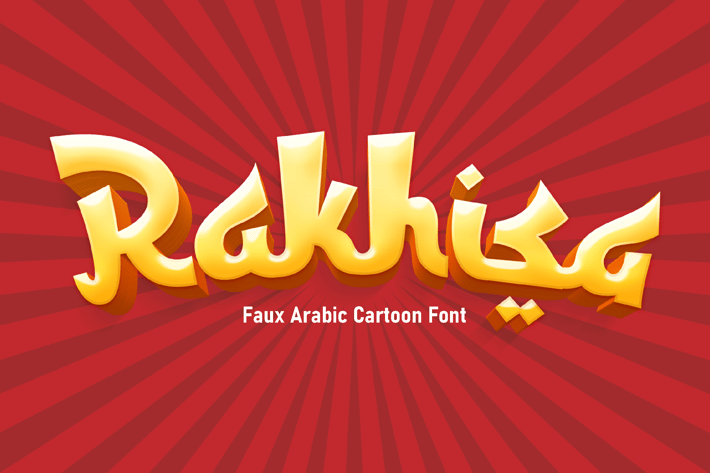
Rakhisa - cartoon faux arabic font
Rakhisa
Playful Arabic-Latin Style, Mosque Vibes, Friendly Display Use
Rakhisa is a rounded cartoon-style display typeface inspired by Islamic architecture and Arabic lettering—perfectly balancing a warm, welcoming tone with playful expressiveness. Its soft curves, geometric form, and bouncy baseline bring cultural storytelling to life. Whether you're designing for Ramadan campaigns, educational materials, or family-centered branding, Rakhisa adds character and connection through its child-friendly, mosque-inspired look.
Its bold, expressive nature makes it stand out on digital platforms like Instagram or YouTube thumbnails, while its approachable form enhances clarity in storytelling. The font blends traditional influence with modern readability, making it both niche and versatile.
With its cultural tone and joyful appeal, Rakhisa becomes an ideal companion for religious-themed posters, family education tools, children's book covers, and festive branding. Its soft, welcoming letterforms evoke warmth and trust, while still remaining bold enough for modern editorial or online content. Creators seeking identity-rich, expressive display fonts for heartfelt, community-centered messaging will find Rakhisa a top design companion.
Key Features
Friendly Visual Identity
- Inspired by Arabic calligraphy with soft, cartoon-like edges
- Balanced between playful and respectful, ideal for interfaith and educational use
Designer-Ready Structure
- Geometric construction with readable proportions
- Rounded terminals and bouncy forms add personality
* Versatile Use Cases
- Perfect for Ramadan banners, social media, kids apps, cultural event branding
- Great visibility on t-shirts, packaging, YouTube covers, and educational posters